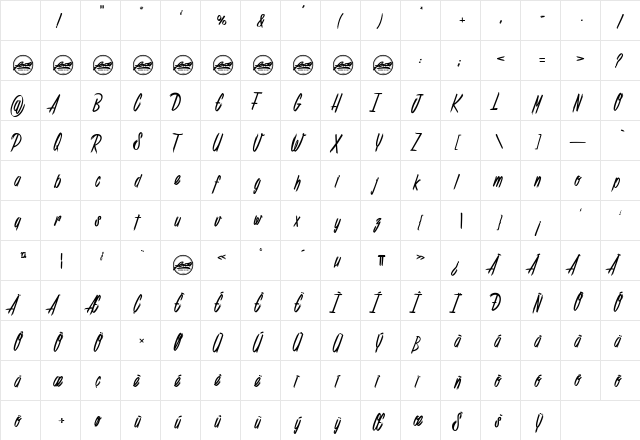
Complete Shenanigans light_PersonalUseOnly Regular glyph index. Displaying only characters natively supported by Shenanigans light_PersonalUseOnly Regular font.
Shenanigans light_PersonalUseOnly is a composed and adaptable typeface that performs quietly and consistently across a wide range of design contexts. Its slender proportions lend an understated elegance to any composition.